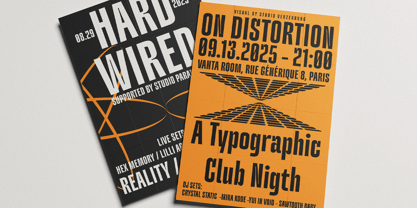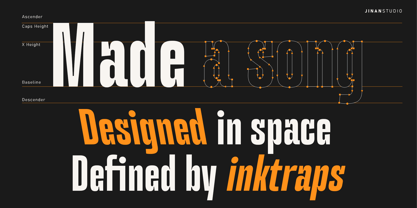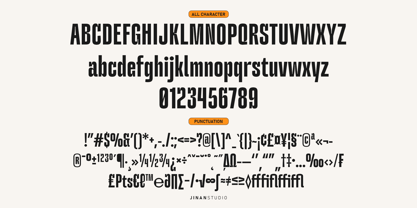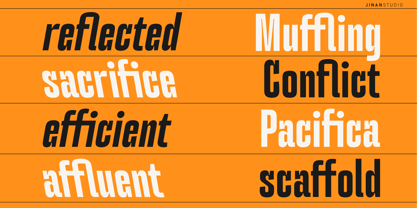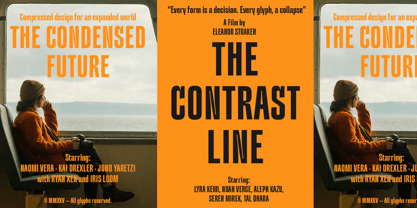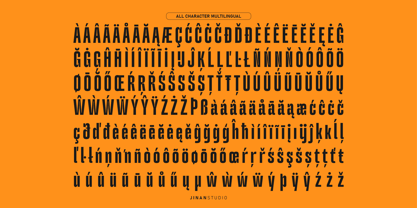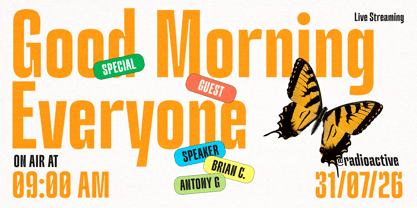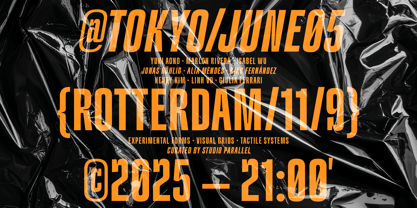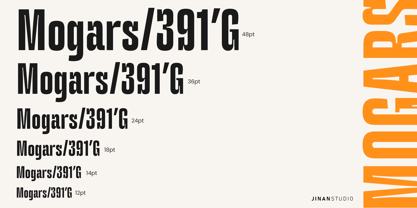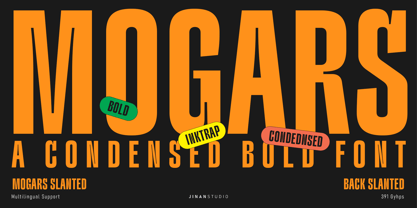
Mogars
by Jinan Studio
The Mogars Font Family was designed by Andi Syahdang, Ainun Jinan and published by Jinan Studio. Mogars contains 3 styles and family package options.
Mogars is a condensed sans serif font that commands attention with its strong, powerful strokes and bold presence. Crafted for impact, Mogars brings a modern edge to headlines, posters, and branding projects that demand a confident voice.
With its tall and narrow letterforms, Mogars maximizes space without sacrificing style. It comes with extra slanted and back slanted styles, giving you dynamic flexibility for a more expressive typographic layout. Whether you're creating editorial titles, bold packaging, or stylish logos, Mogars delivers a clean, assertive aesthetic that stands out.
• A set of uppercase and lowercase glyphs
• Number, symbol, and punctuation
• Multilingual Support
• Some Alternates and Ligatures
• Slant and Backslant Version